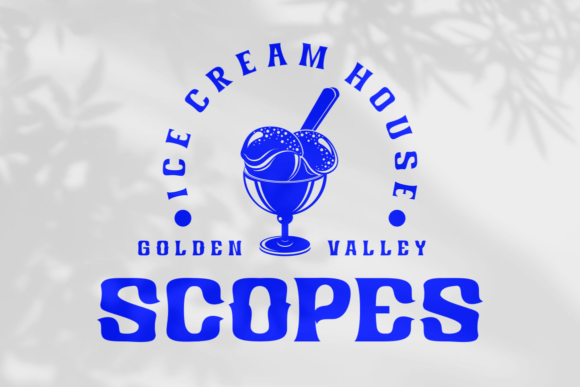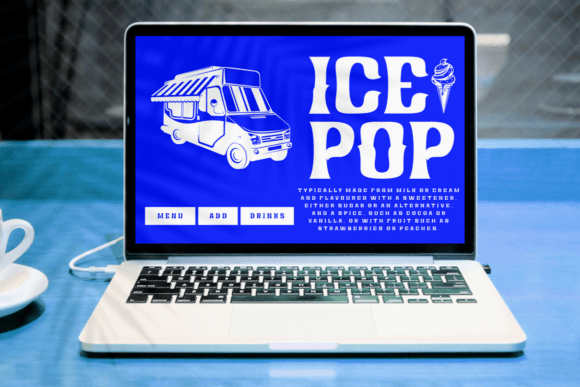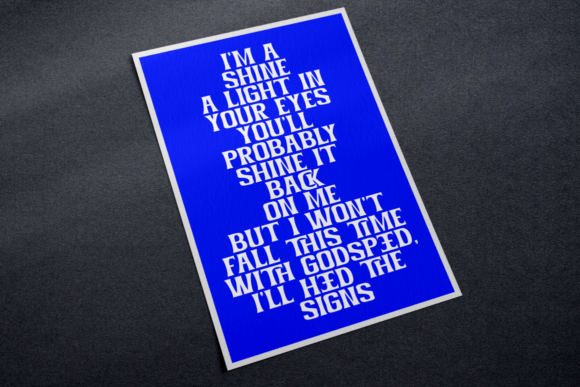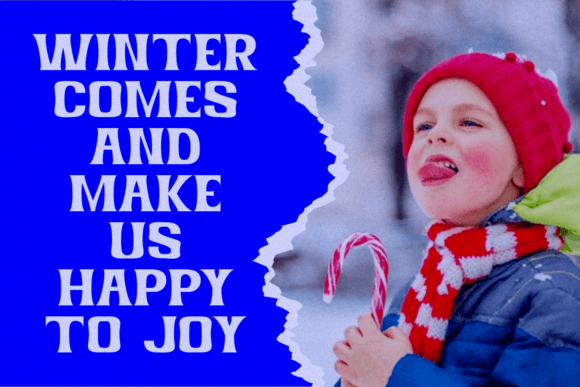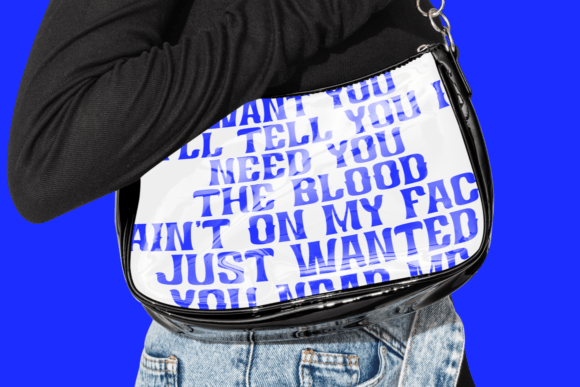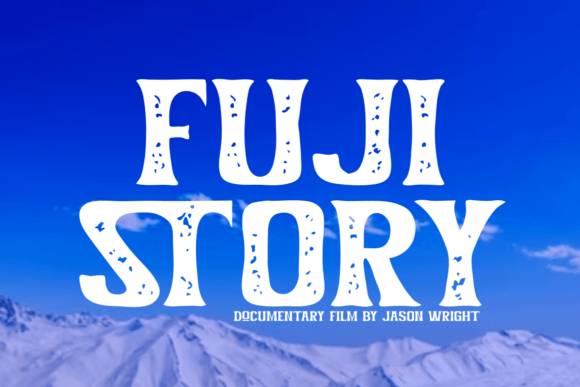
Introduction to Hold Hand Font
Hold Hand – A Modern Display Font with Distinctive Charm Hold Hand is an exceptional modern display font that captivates with its unique and original design.
This font sets the stage for contemporary creativity, making your projects stand out with its distinct flair This font comes in two versatile versions, allowing you to choose between the regular and display styles.
Hold Hand Font offers exceptional quality and versatility, making it a valuable addition to your design toolkit. Whether you’re creating for personal projects or commercial use, Hold Hand Font delivers professional results.